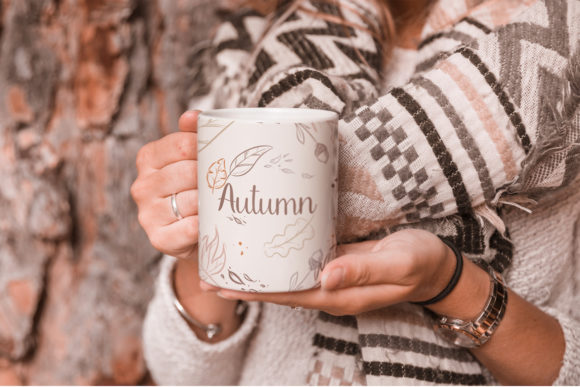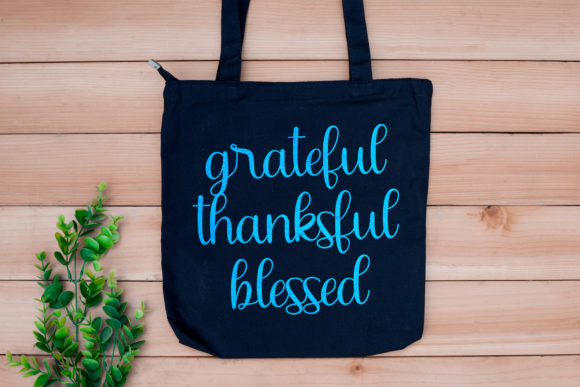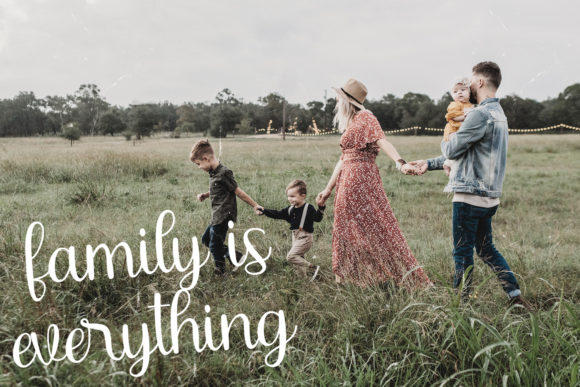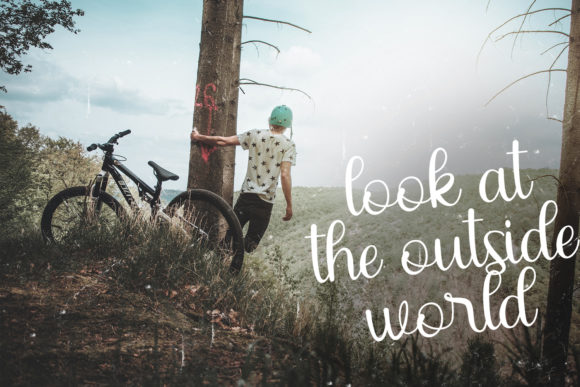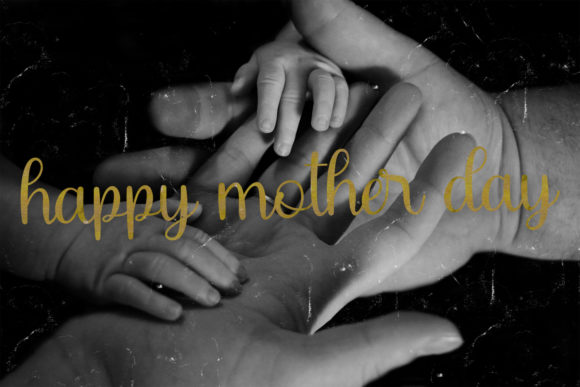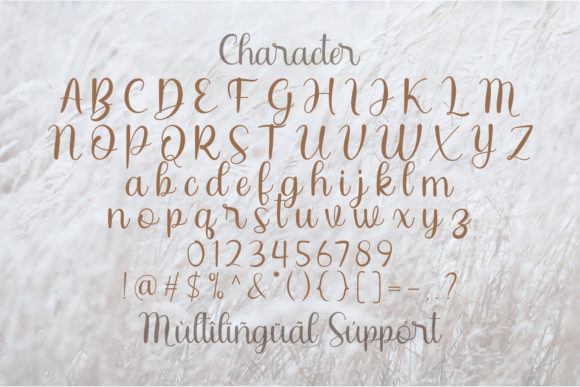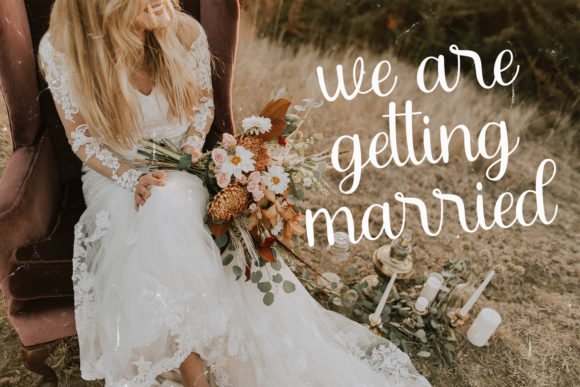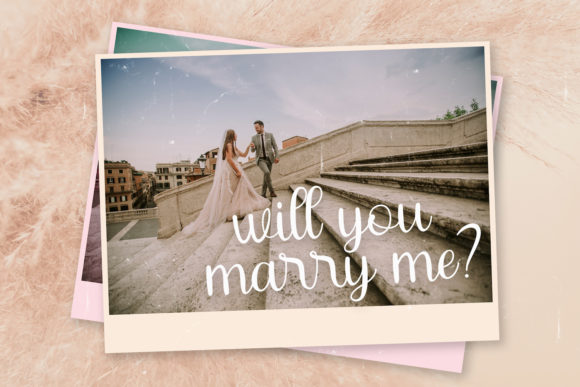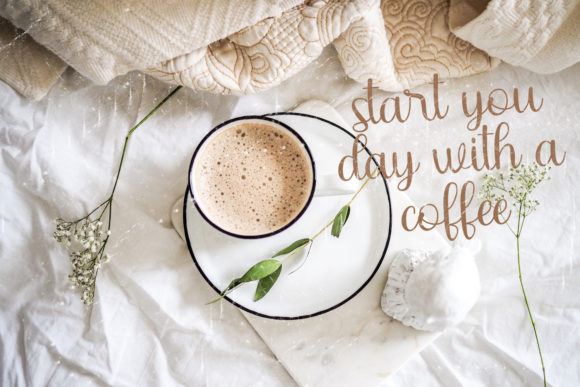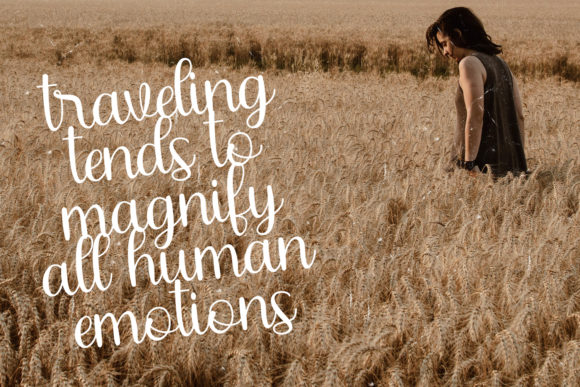
Chaybree Font
About Chaybree Font
Chaybree is a flowing handwritten font, described by an elegant touch, perfect for your favorite projects. Fall in love with its incredibly distinct and timeless style and use it to create spectacular designs!